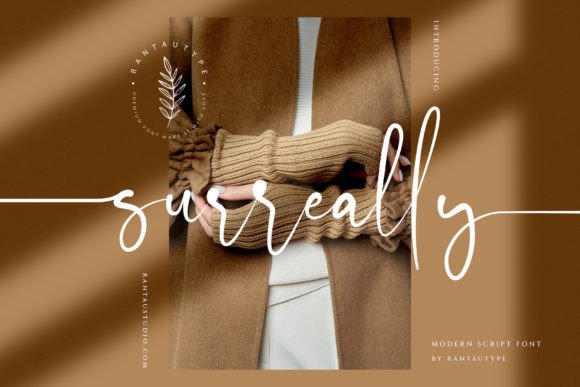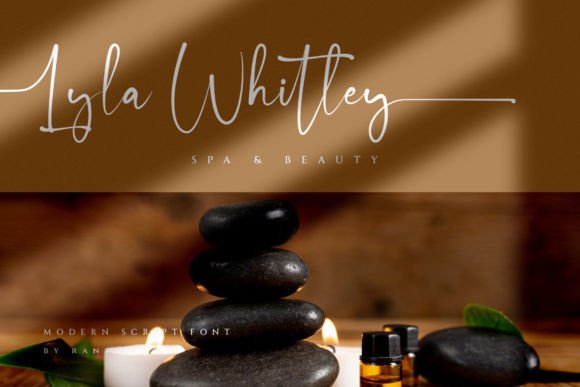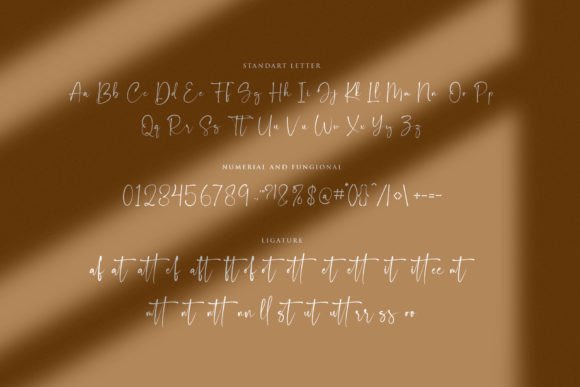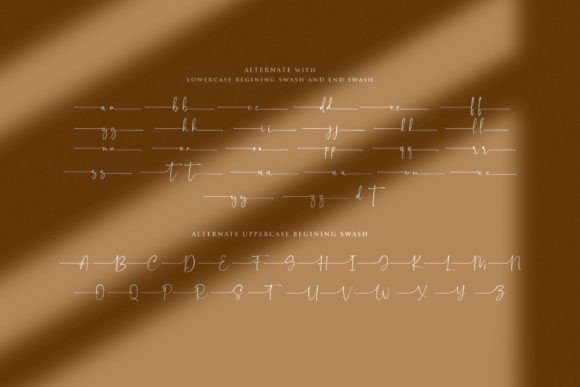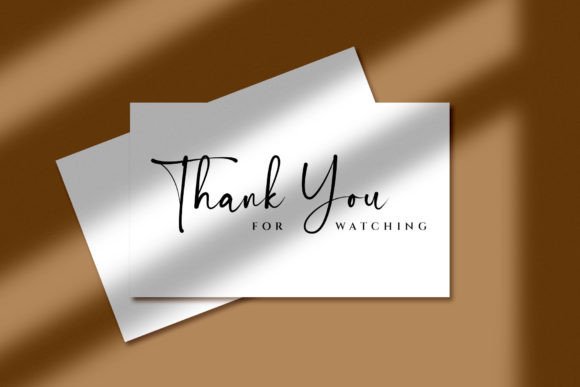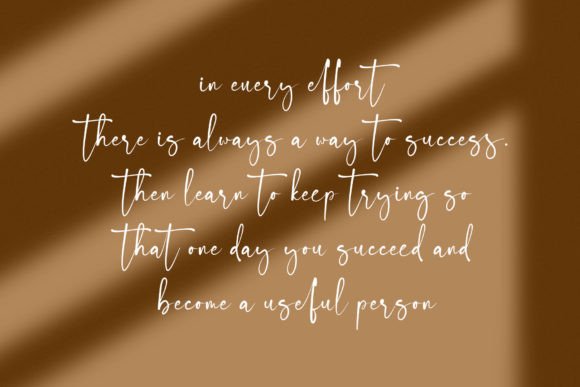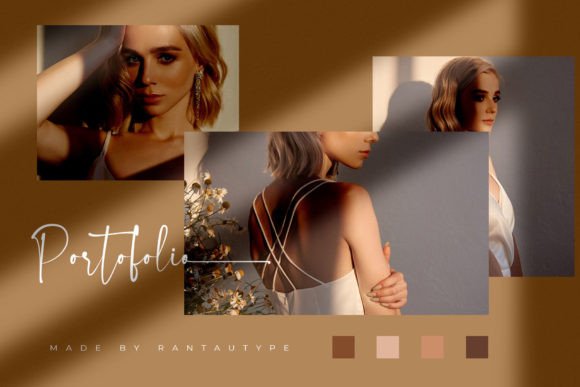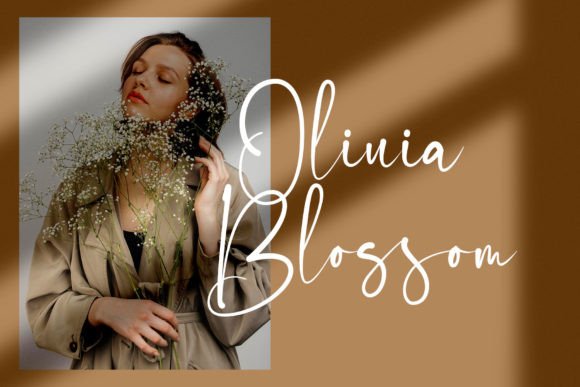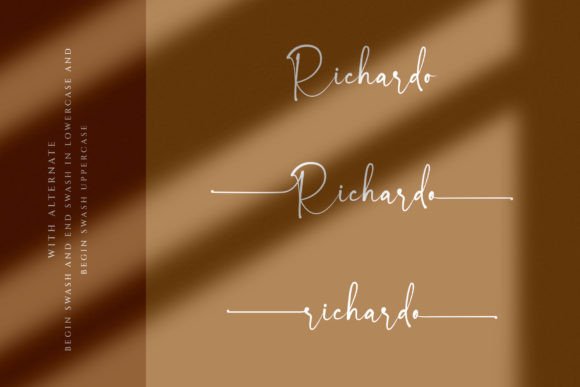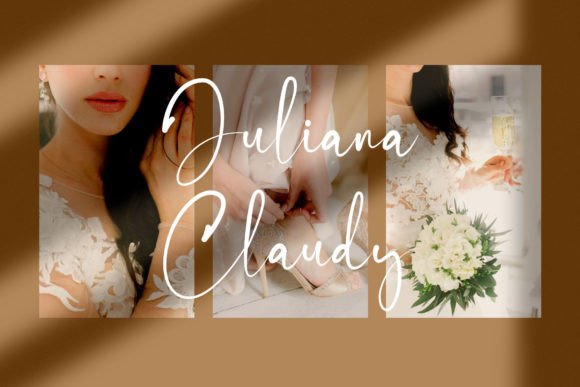
Surreally Font
Add Professional Style with Surreally Font
The Surreally font is a signature-style script with a professional and modern feel. Its stylish, readable, and catchy design makes it ideal for a variety of creative projects. Whether you’re designing photography watermarks, logos, quotes, album covers, magazines, t-shirts, or other branding materials, Surreally adds sophistication and flair to your work.
Perfect for Watermarks, Logos, and Branding
The Surreally font excels across multiple design applications including personalized branding, editorial layouts, merchandise designs, and social media graphics. Its smooth strokes and elegant style give your projects a polished and memorable appearance.
A Signature Script That Balances Style and Readability
Each character in the Surreally font is crafted to deliver a modern and highly readable script. This balance makes it suitable for logos, headlines, branding, and detailed text elements where clarity and style are essential.
Despite its elegant design, the Surreally font maintains excellent readability across various sizes. Whether used for subtle watermarks or bold titles, it adds sophistication without sacrificing clarity, making it a versatile choice for many creative projects.
Elevate Your Designs with Surreally’s Signature Style